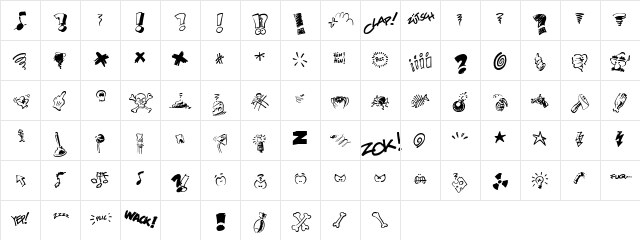
DammnedDingbatsRegular Regular
Design Context for DammnedDingbatsRegular Typeface
DammnedDingbatsRegular is a composed and adaptable typeface that performs quietly and consistently across a wide range of design contexts.